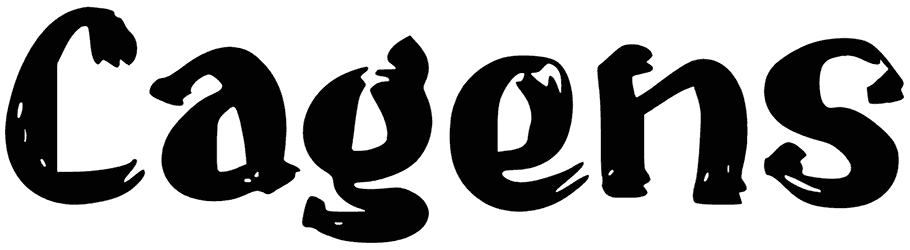
c Cagens Font
If you want creative text, you can use an informal paint-brushed look. c Cagens has an extra bold and distorted handwritten character design, and it will give a cool and grunge look to your reader. You can use this adventure font for comic books, product introductions and naming, cartoon titles, and channel banners.